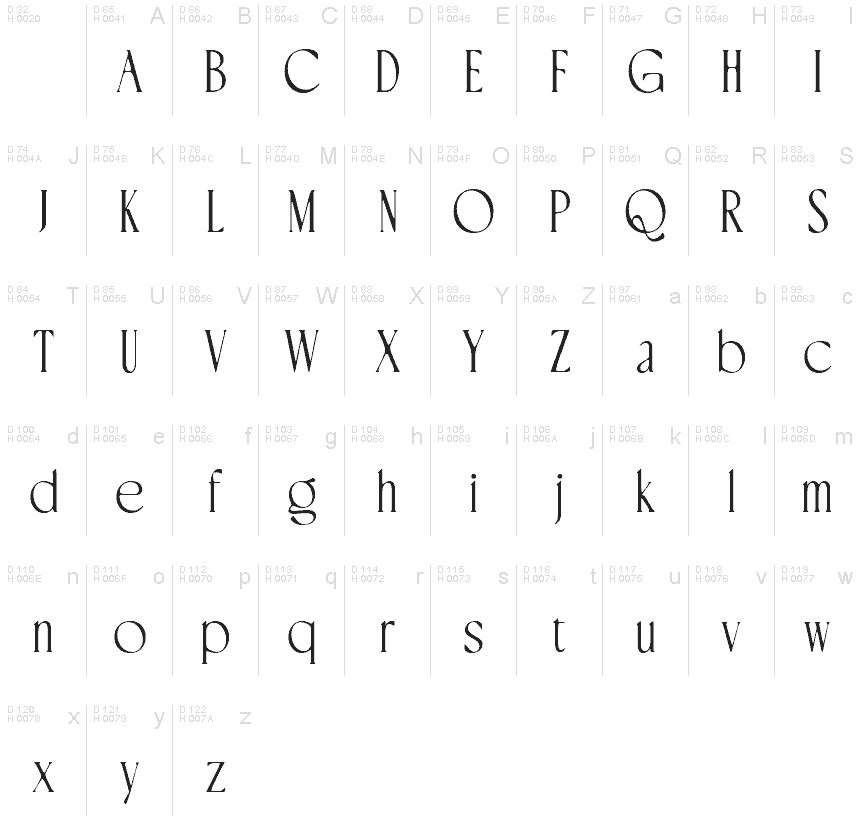
CSCaloryDrawn-Regular Demo
CS Calory font is a CS Calory Drawn by Craft Supply Co., a serif typeface with an elegant and sophisticated look. Its classic appeal gives it a timeless aesthetic that works in various design types. The font may include some glyphs which extend its usage possibilities.
Free serif font CS Calory is suitable for branding projects, product packaging or boxes, labels, book covers, magazine designs, and where text is predominant. It can also be used to create logos, posters or printed and digital advertisements.